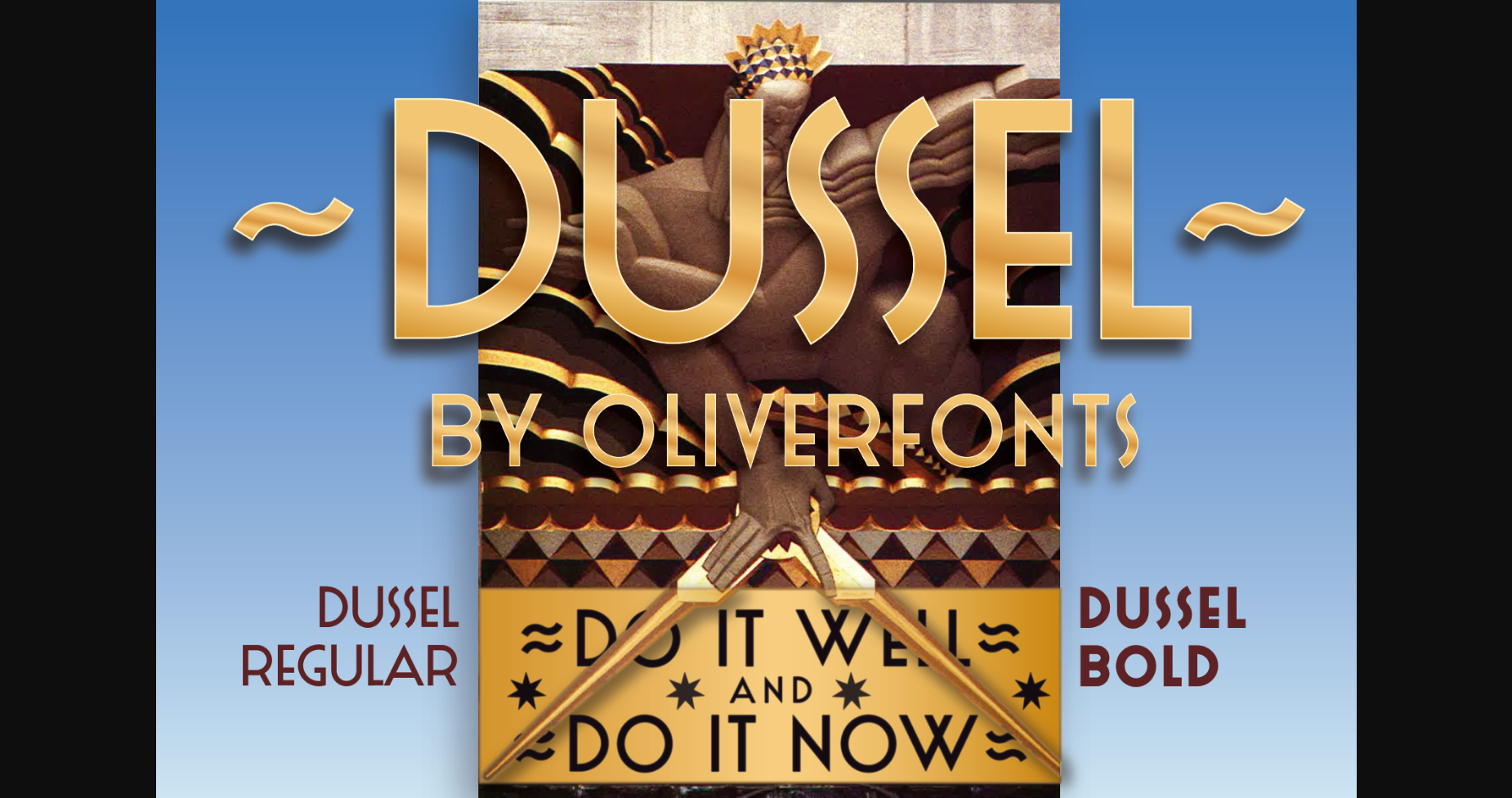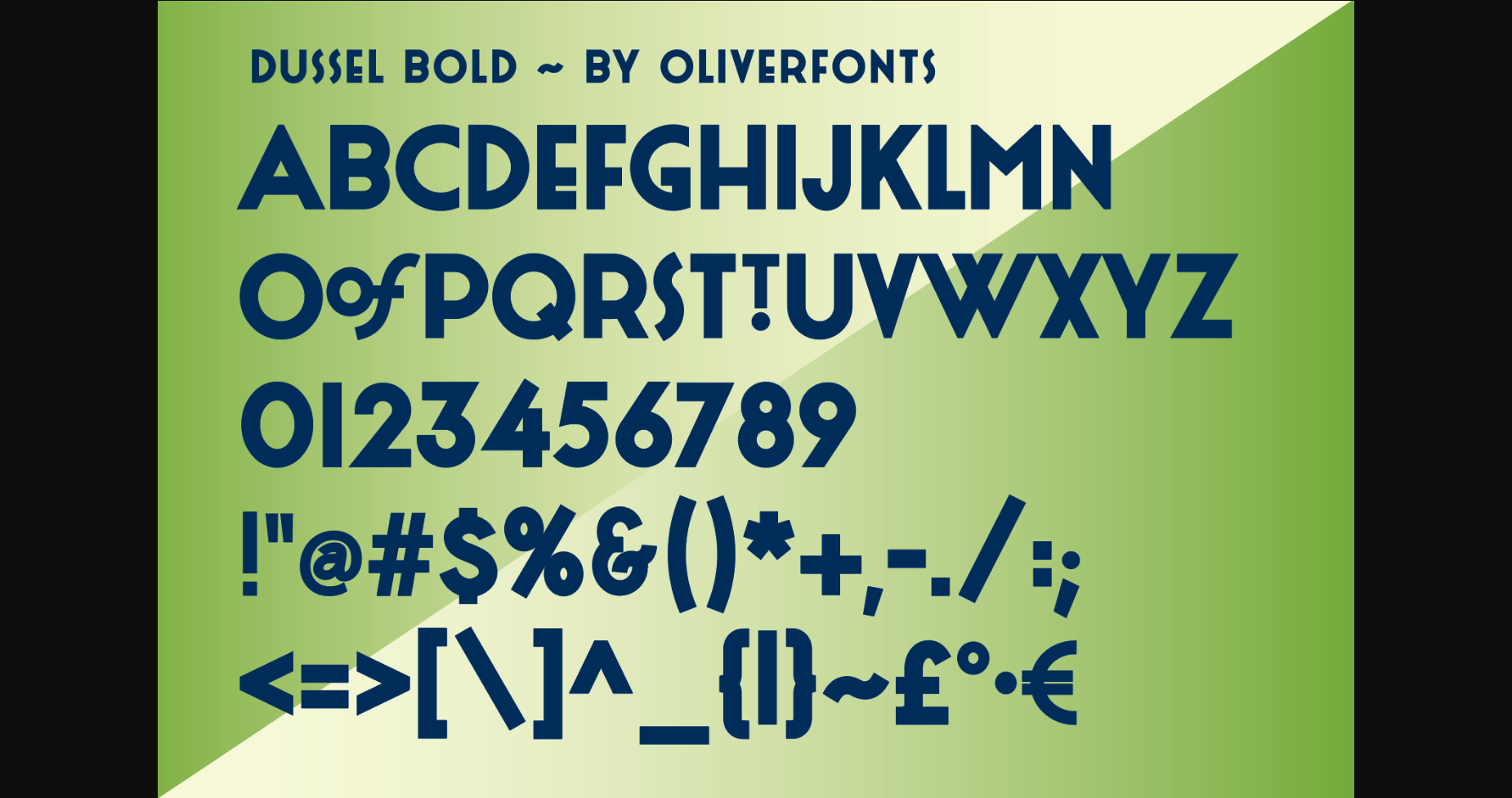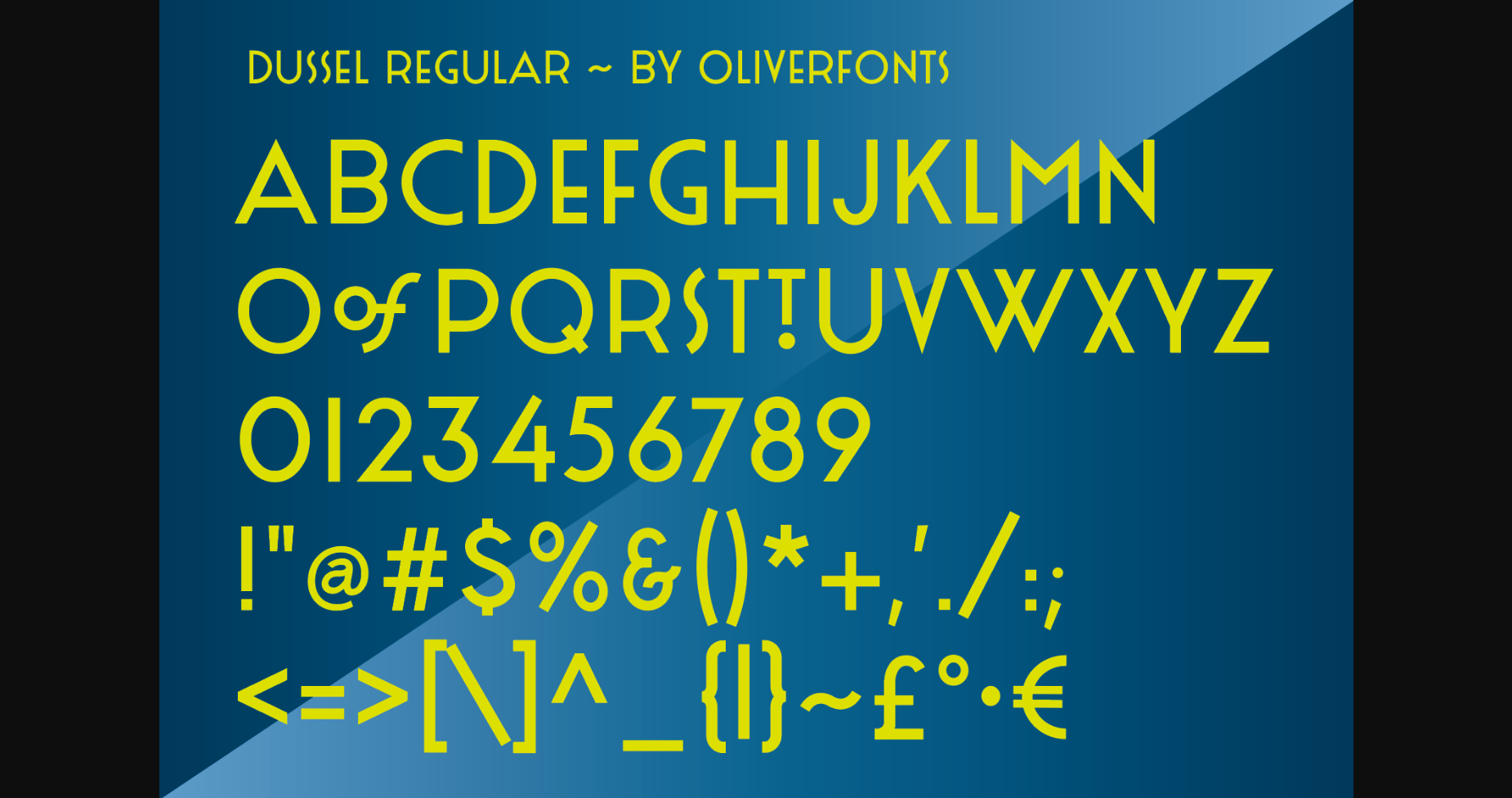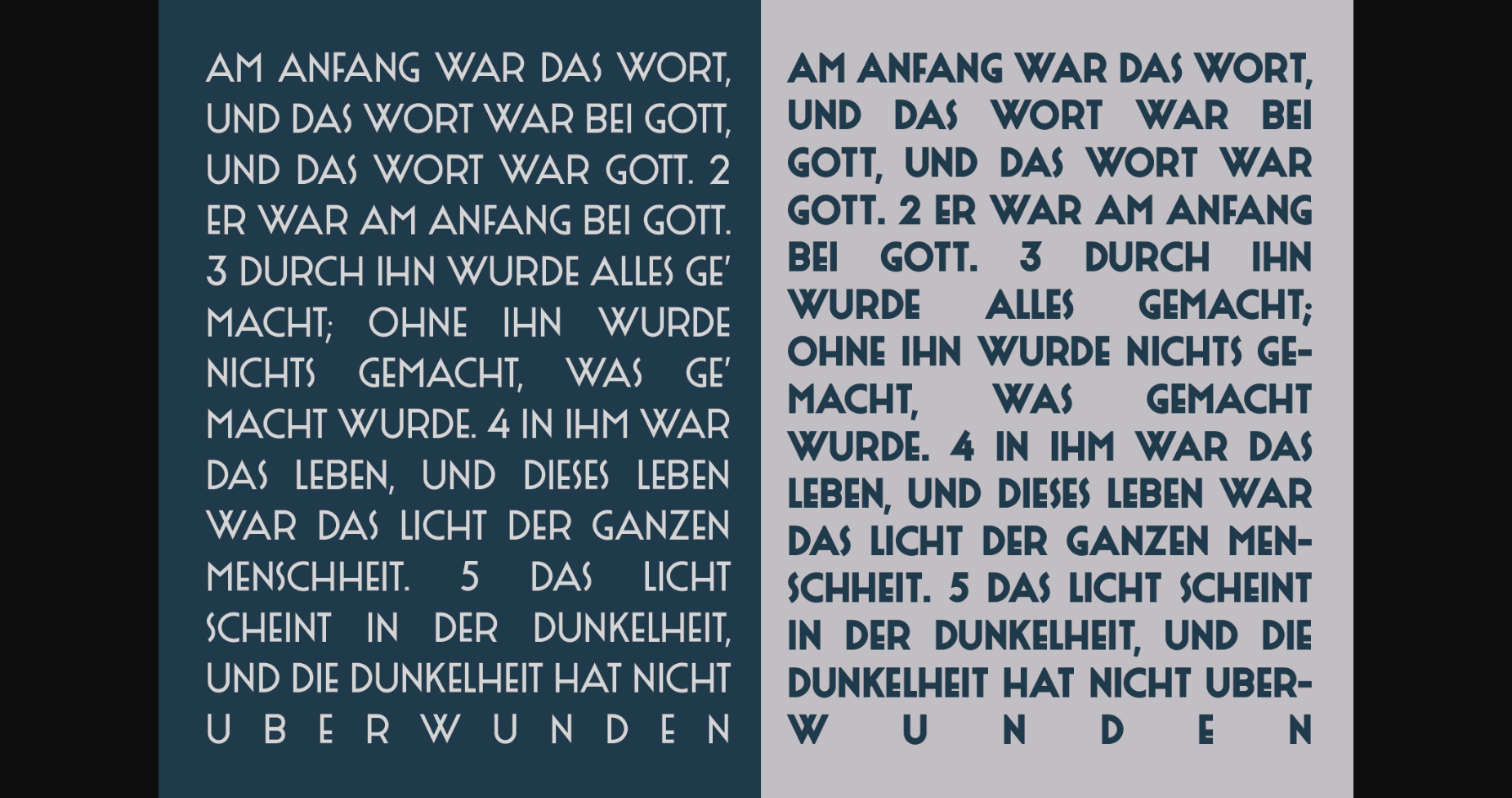
HomeSans Serif FontsDussel Font Sans Serif Fonts Dussel Font FacebookXPinterestWhatsApp 1 of 6 ... Dussel Font Poster 2... Dussel Font Poster 3... Dussel Font Poster 4... Dussel Font Poster 5... Dussel Font Poster 6... About Dussel Font Dussel is an elegant and bold sans serif font. Fall in love with its incredibly versatile style and use it to create gorgeous invitations, beautiful stationary art, eye-catching social media posts, and much more! DOWNLOAD NOW People also explored Sibship Font Inside Mistery Font Milky Wanderlust Font Twilight Sunflower Font Meyriska Font Cashback Font Craftery Extra Black Font Hey Magnolia Font 547 0 TagsDusselDussel Font Previous articleMoula FontNext articleEqualizer Font LEAVE A REPLY Cancel reply Comment: Please enter your comment! Name:* Please enter your name here Email:* You have entered an incorrect email address! Please enter your email address here Website: Save my name, email, and website in this browser for the next time I comment. Personal Use Free ABC Personal Use Free Read more about this font Starry Cakes Personal Use Free Read more about this font Abingdon Personal Use Free Read more about this font Bebas Neue Font Personal Use Free Read more about this font BLOG Free vs Paid Fonts: Why Investing in Premium Fonts Is Worth It Free vs Paid Fonts: Why Premium Fonts Are Worth It in 2025 The debate of free vs paid fonts continues in the design world. While... 5 Fonts That Will Dominate Design Trends in 2026 Top 10 Handwritten Fonts That Elevate Your Designs Transform Your Website: Elevate Your Typography with 7 Best Web Font Generators